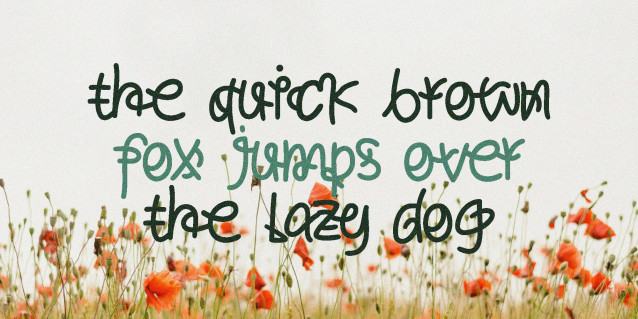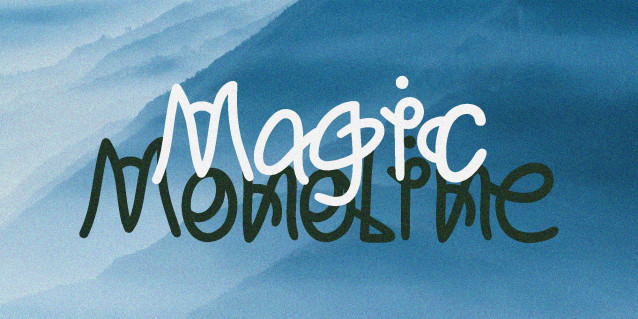
Magic Monoline Font
Magic Monoline Font is a handwriting font with an abstract and unique touch, radiating a magical aura in every stroke. With flowing monoline curves and dynamic letterforms, this font creates the illusion of writing appearing as if by magic. Its eccentric and creative characteristics make it perfect for projects that seek to evoke an imaginative and artistic feel. Additionally, MagicMonoline supports multilingual characters, ensuring versatility across various languages.